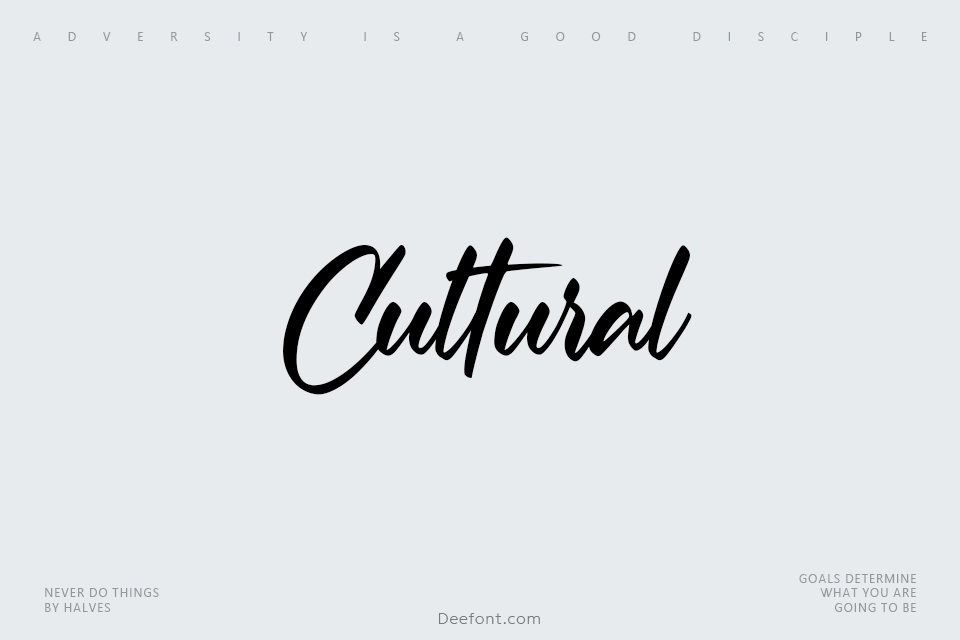
Cultural Font
Cultural is an elegant script font that combines handwritten charm with refined aesthetics. Designed by Cat.B and first appearing on DaFont in February 2024, this typeface brings personal flair and sophisticated elegance to your creative projects. Perfect for invitations, logos, branding, and decorative typography, the Cultural font captures fluid, natural letterforms with 185 glyphs. Its versatile handwritten style makes it suitable for both contemporary and classic design applications, offering distinctive character while maintaining excellent legibility for impactful visual communication.